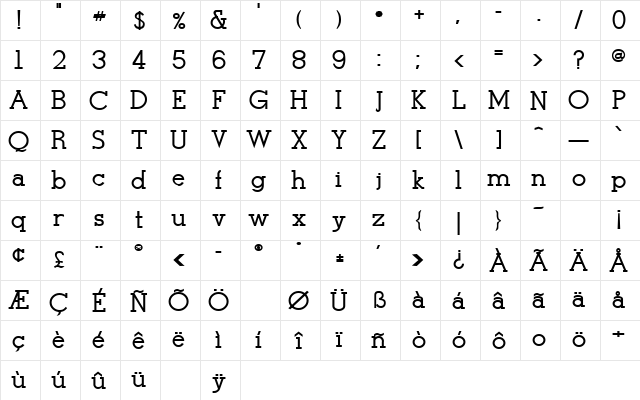
Midnight Rider 3 Bold
Design Context for Midnight Rider 3 Typeface
Midnight Rider 3 offers clean, dependable letterforms without strong stylistic allegiance, making it a practical choice for designers who need flexibility. The heavy weight commands attention and anchors typographic hierarchies.
Pro Tip: Pair Midnight Rider 3 with a font of contrasting weight or personality to build a more expressive typographic hierarchy.